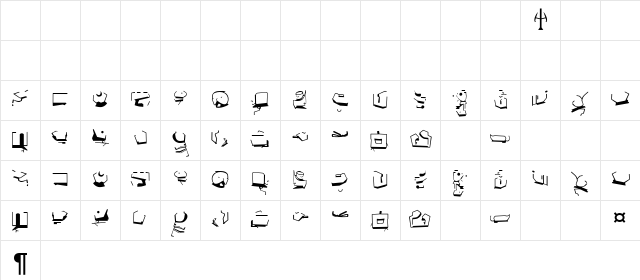
ST Bajoran Ancient Regular
Design Context for ST Bajoran Ancient
ST Bajoran Ancient is a composed and adaptable typeface that performs quietly and consistently across a wide range of design contexts.
Pro Tip: Use ST Bajoran Ancient in both headline and body roles to test its range before committing to a single application.